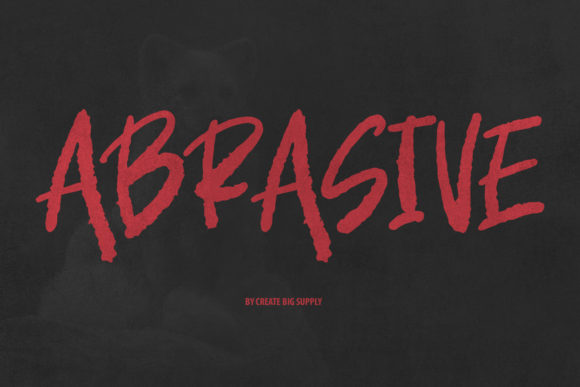
Abrasive Font: The Creepy and Brushed Display Font for Bold Designs
In the world of typography, fonts play a crucial role in conveying the tone and personality of a design. For designers and crafters looking to add a touch of edginess to their work, the Abrasive font is an excellent choice. This creepy and brushed display font is perfect for creating bold and eye-catching designs that leave a lasting impression.
What is Abrasive Font?
Abrasive is a unique and rugged display font that features a distressed, brushed texture. Its irregular and rough appearance gives it a creepy and industrial feel, making it ideal for designs that require a bold and avant-garde look. The font’s ruggedness is balanced by its excellent legibility, ensuring that your message is conveyed clearly and effectively.
Characteristics of Abrasive Font
The Abrasive font boasts several characteristics that make it a standout choice for designers and crafters. Some of its key features include:
• Distressed texture: The font’s brushed texture gives it a worn and rugged appearance, adding a touch of industrial chic to your designs.
• Creepy and bold: Abrasive’s irregular shape and rough edges create a creepy and bold look that’s perfect for designs that require a strong personality.
• Excellent legibility: Despite its rugged appearance, the font remains highly legible, ensuring that your message is conveyed clearly and effectively.
• Versatile: Abrasive is suitable for a wide range of designs, from t-shirts and sportswear to logos, advertisements, and more.
Uses of Abrasive Font
The Abrasive font is incredibly versatile and can be used in a variety of design projects. Some of the most popular uses for this font include:
• T-shirts and sportswear: Add a bold and edgy touch to your apparel designs with Abrasive’s rugged and distressed texture.
• Logos and branding: Create a strong and memorable brand identity with Abrasive’s unique and creepy appearance.
• Advertisements: Use Abrasive to create eye-catching and bold advertisements that grab attention and leave a lasting impression.
• Clothing and accessories: Add a touch of industrial chic to your clothing and accessory designs with Abrasive’s rugged and distressed texture.
Tips for Using Abrasive Font
In conclusion, the Abrasive font is a unique and versatile display font that’s perfect for designers and crafters looking to add a touch of edginess to their work. Its creepy and brushed texture, combined with its excellent legibility, make it an excellent choice for a wide range of design projects. Whether you’re creating t-shirts, logos, advertisements, or clothing, Abrasive is sure to make your designs stand out.